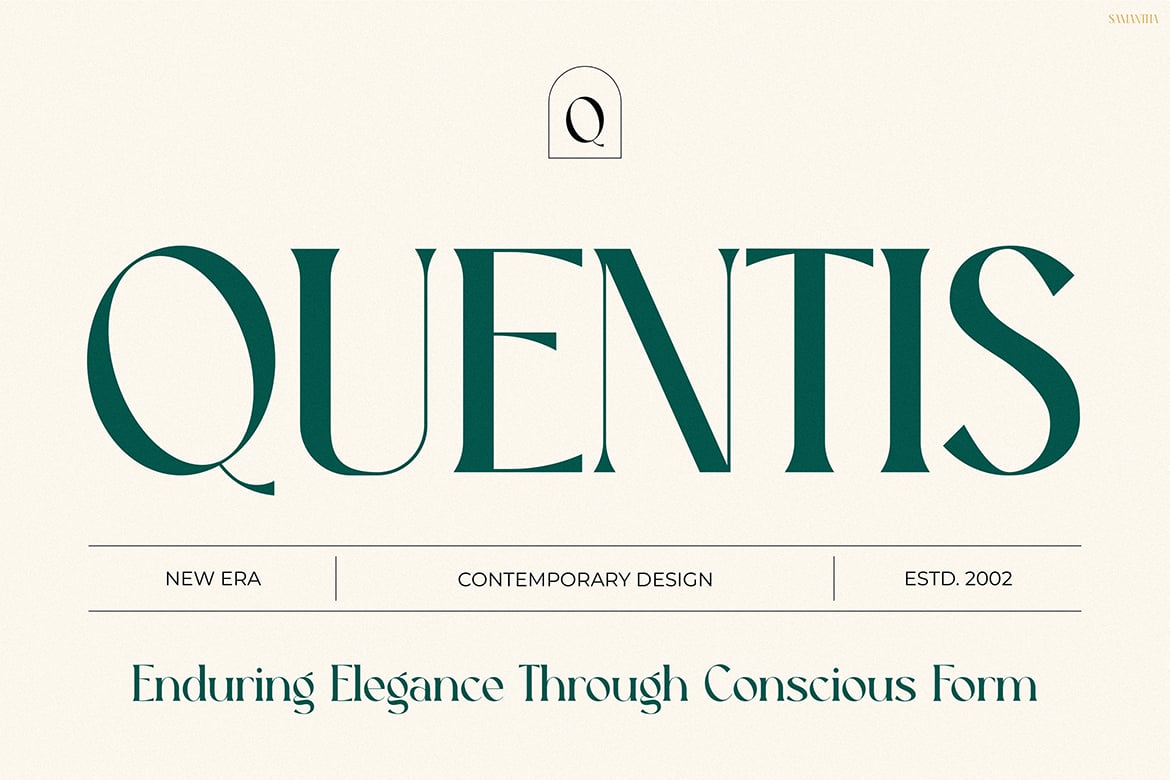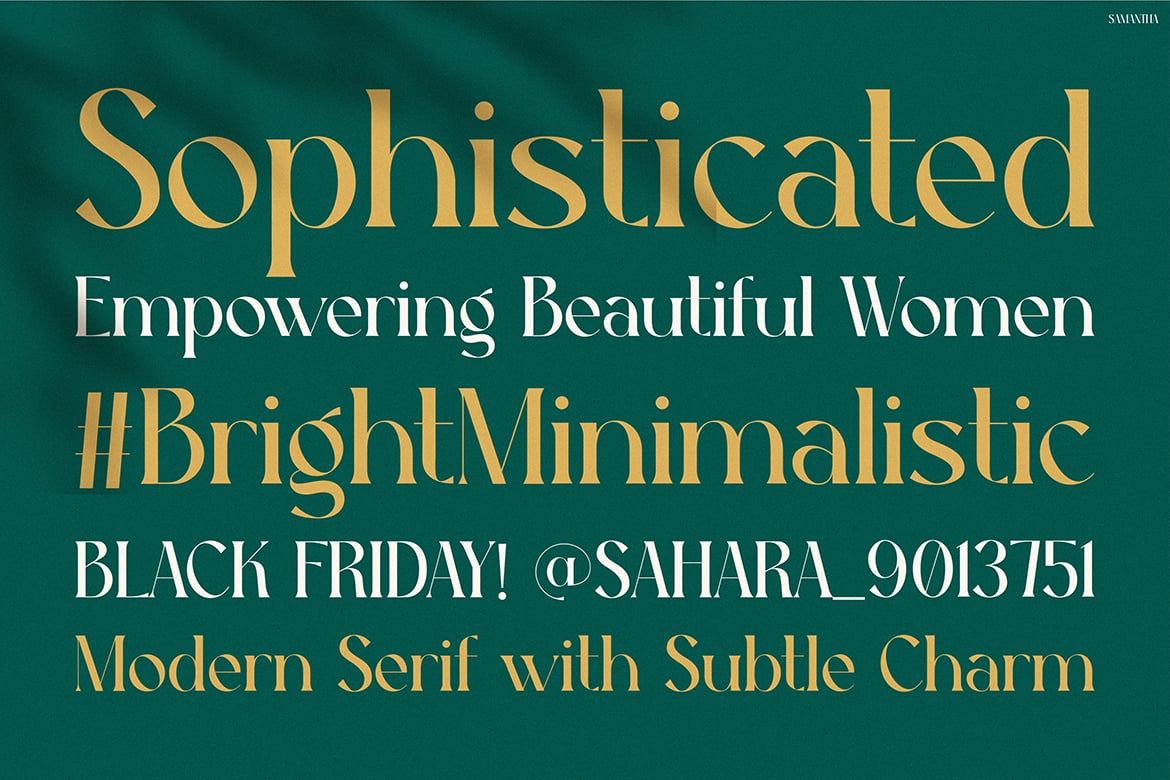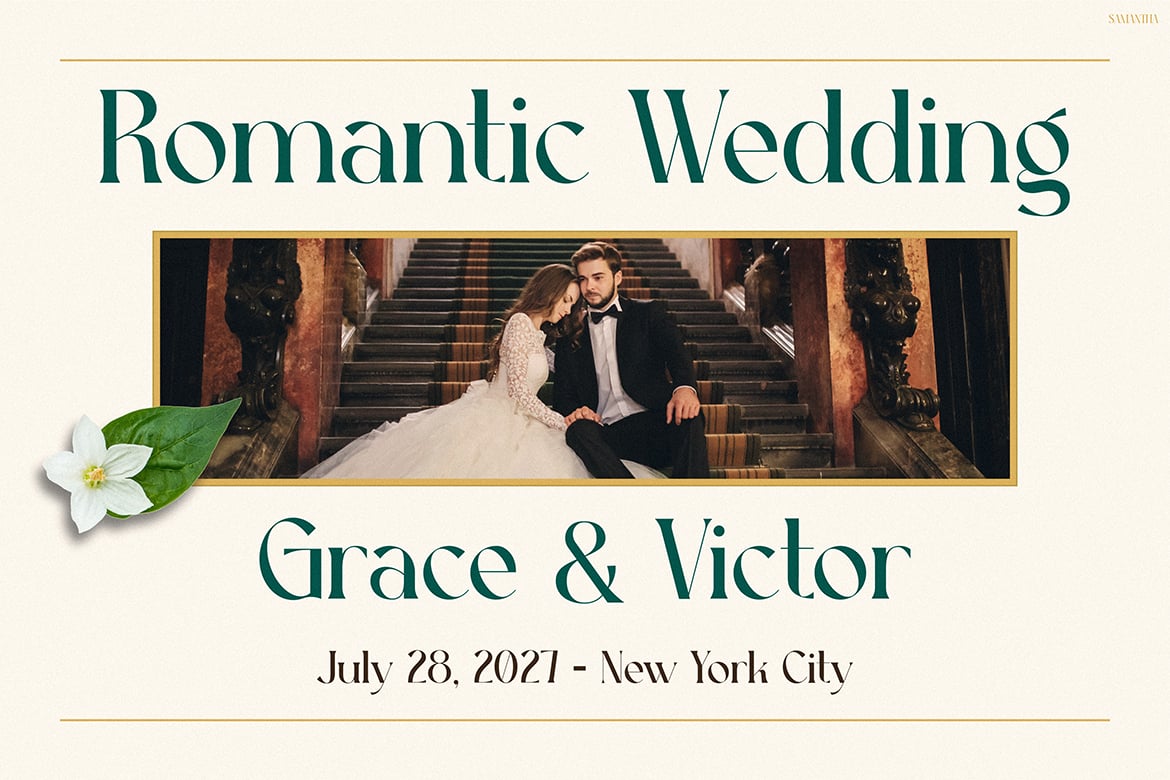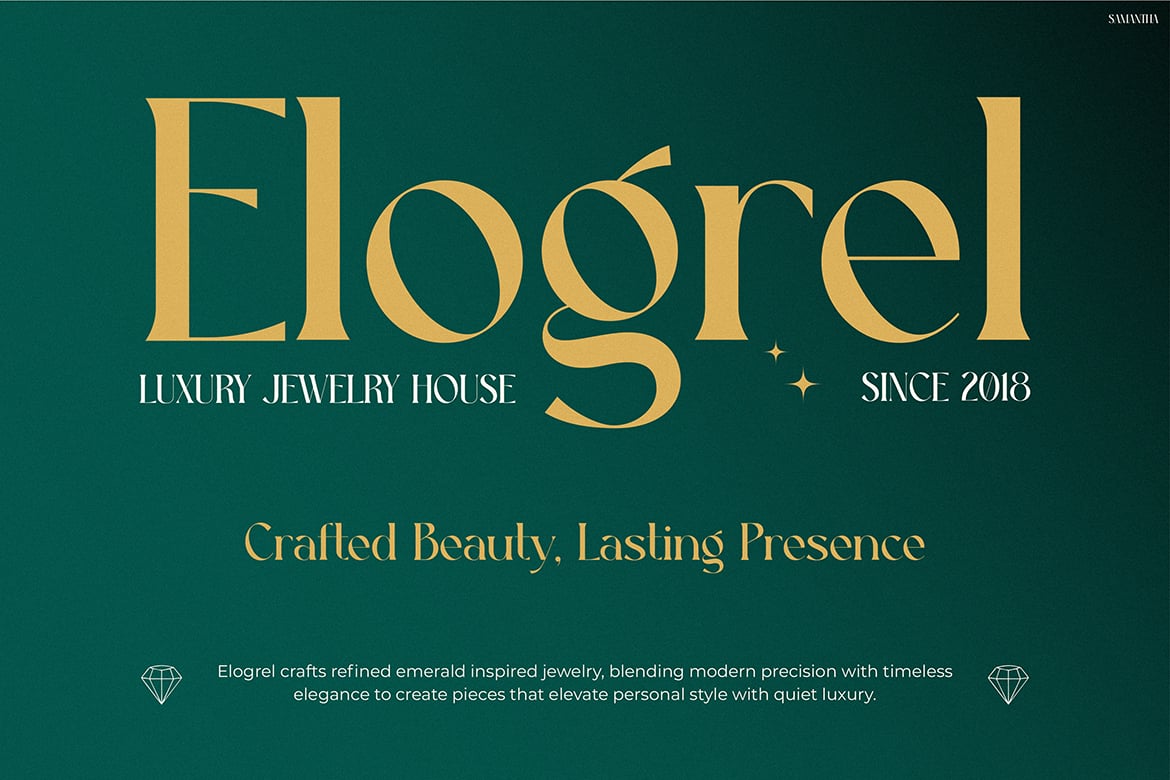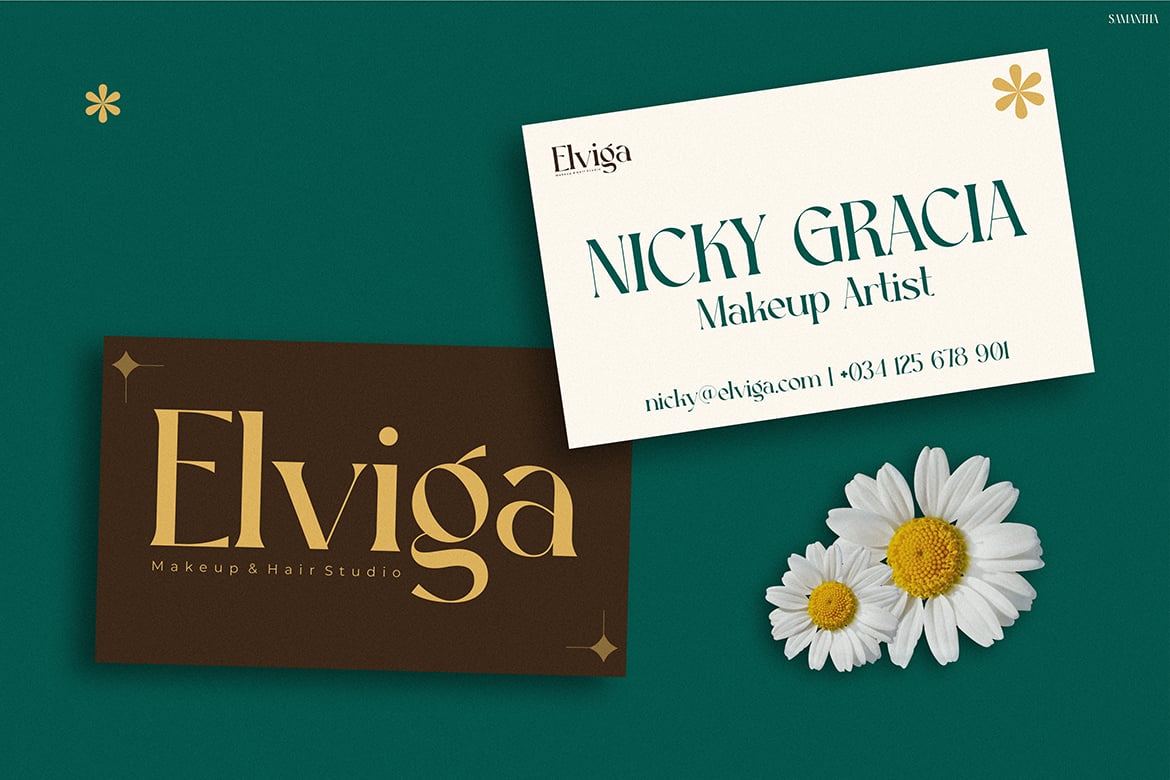
Samantha - Modern Editorial Serif
Samantha introduces a refined editorial serif designed for creators seeking a long-tail solution for elevated branding with expressive soft curves and smooth contrast. Its vibe is calm, elegant, and contemporary, making it ideal for fashion-inspired layouts, Instagram branding, and clean product design.
The letterforms feature balanced proportions, slender serifs, and subtle transitions, giving the font a polished clarity that works beautifully in both large headlines and delicate text lines.
Samantha blends editorial sophistication with modern readability, it naturally fits into branding systems, poster layouts, magazine-style social media feeds, beauty packaging, ads, and wedding identity design. Designers who want a typeface that feels professional, intentional, and visually cohesive will find Samantha an ideal partner for creating attention-steadying headlines, warm storytelling compositions, and clean product messaging.
Key Features : Why Designers Choose Samantha
• Clean serif structure that supports professional branding visuals
• Stable rhythm & proportion, perfect for editorial design
• High contrast accents that enhance visual flow
• Elegant shapes that adapt well to fashion, beauty, and lifestyle communications
• Versatile tone, suitable for formal or soft visual identities
• Easy readability, even in lighter weights
Design Problems Samantha Solves
• Provides a clear visual hierarchy for branding and packaging
• Gives social media layouts a consistent and stylish editorial feel
• Enhances product identity with a refined yet simple serif character
• Adds warmth and clarity to wedding design projects
• Supports storytelling with balanced letter shapes that guide the reader